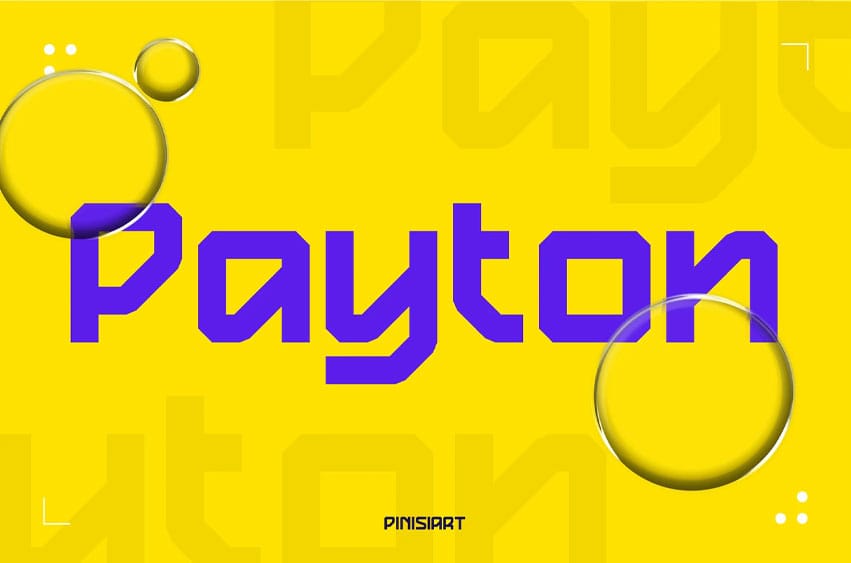
Payton Font is a futuristic geometric typeface designed for digital-forward aesthetics and next-gen creativity. Its strong square forms, sharp edges, and clean modular balance deliver a bold personality that instantly attracts attention. Every curve and angle is designed with visual clarity and precision, making it perfect for tech startups, digital products, and futuristic branding. Payton’s energetic structure feels modern, confident, and immersive, giving your design an unmistakable digital rhythm.
Whether you’re crafting a technology brand, UI/UX interface, poster design, or digital marketing asset, Payton projects innovation and authority. Its futuristic appeal blends perfectly with gaming titles, wearable tech ads, or creative agencies aiming for a sleek, contemporary feel. The geometric consistency and proportionate width allow Payton to maintain strong readability, even at bold headline scales or in minimalist layouts.
Key Features :
- Futuristic Geometry: Sharp lines and even proportions bring a sense of innovation.
- Dynamic Versatility: Works beautifully for branding, digital posters, app interfaces, and product design.
- Tech-Focused Aesthetic: Ideal for AI startups, gaming, VR interfaces, or smart device promotions.
- High Readability: Structured shapes ensure clarity on screen and print.
- Distinctive Style: Creates visual impact through strong, clean digital rhythm.